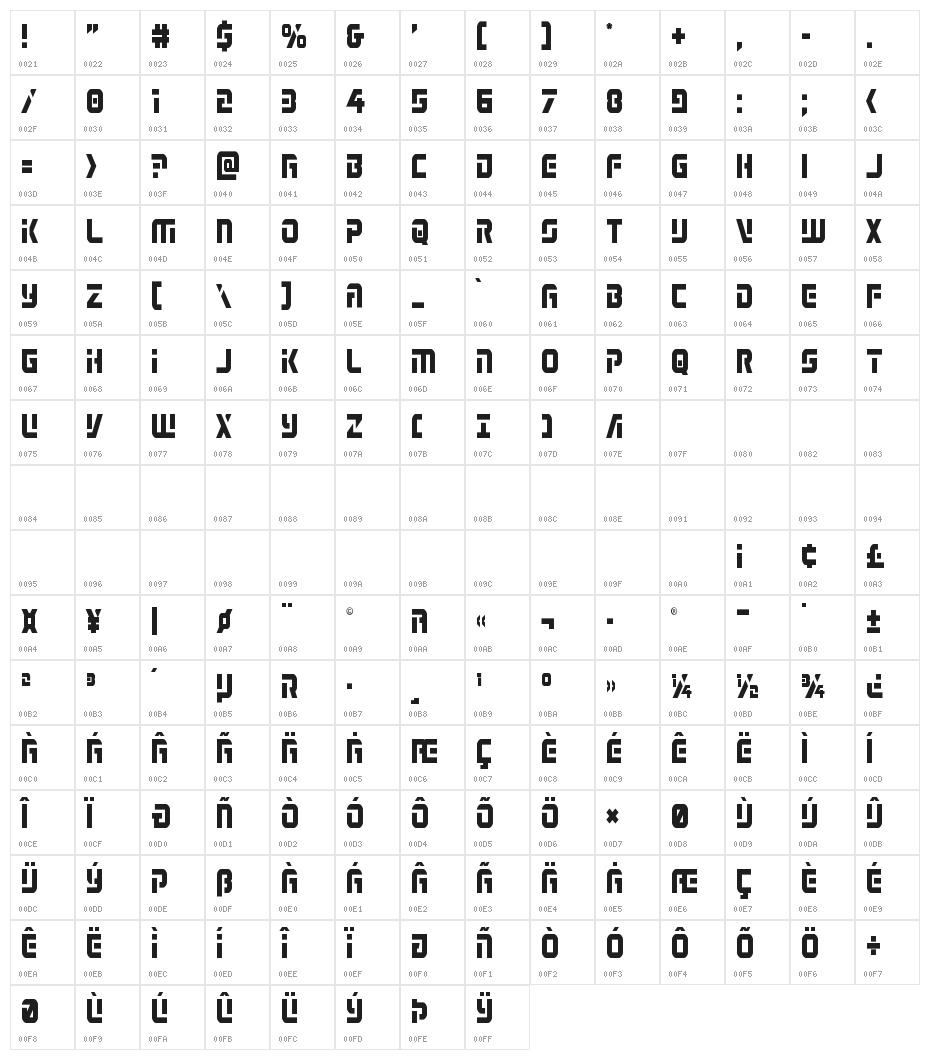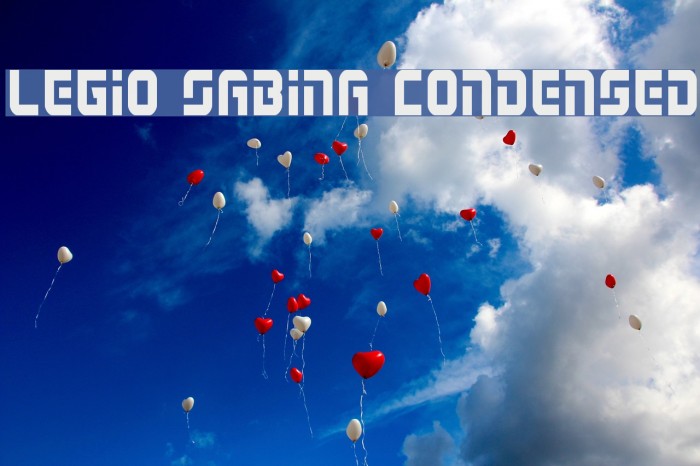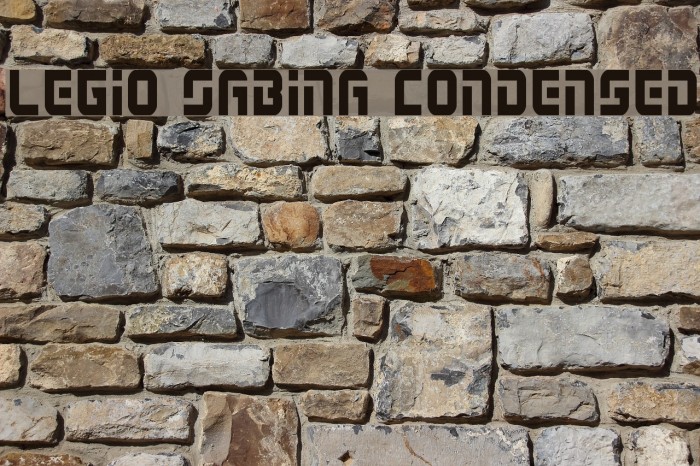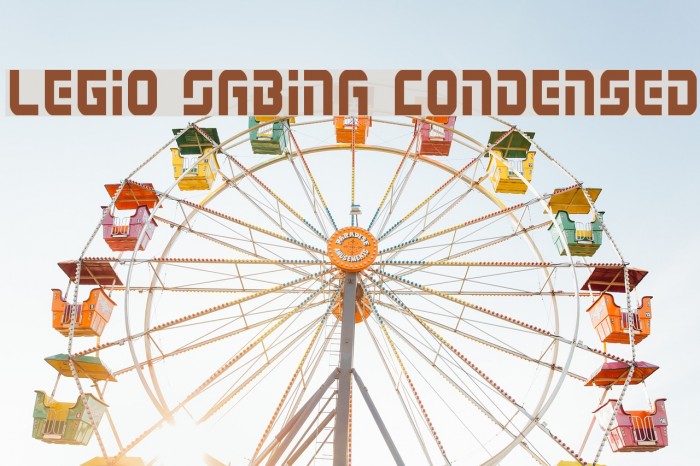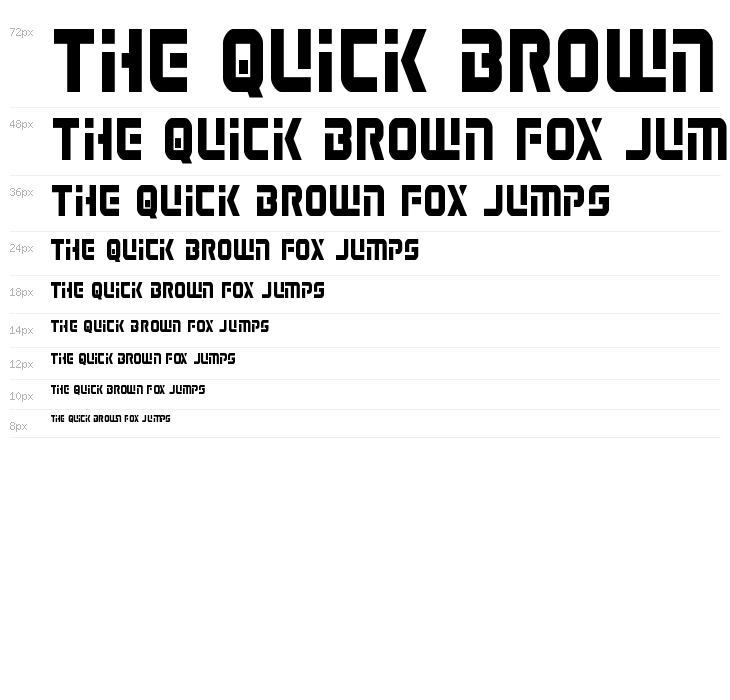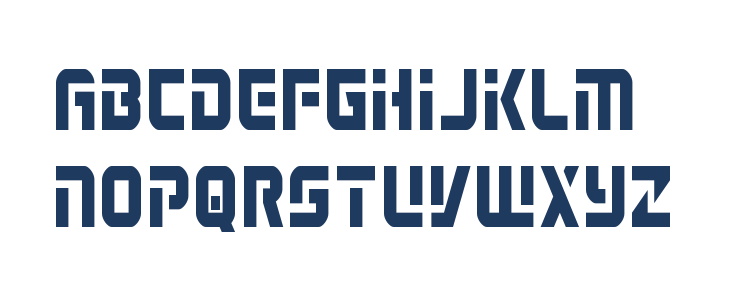
Legio Sabina Condensed Font
Legio Sabina Condensed Description
This font features a bold, geometric design with a condensed width, giving it a strong and impactful appearance. The characters are constructed with sharp angles and straight lines, creating a futuristic and industrial feel. The uppercase and lowercase letters maintain a consistent style, emphasizing uniformity and precision. The numbers and special characters follow the same design principles, ensuring a cohesive look across all elements. The font's boldness and condensed form make it ideal for attention-grabbing headlines and logos, where space is limited but impact is necessary.